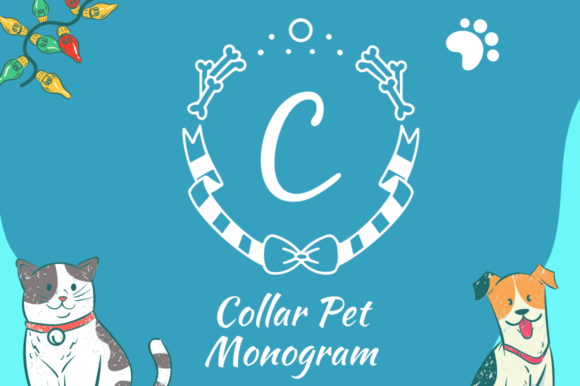
Welcome to the world of Collar Pet Monogram Font, a decorative font collection that will captivate your heart and unleash your creativity. Inspired by the irresistible charm of cats, this font family is a delightful blend of playfulness and sophistication, designed to add a touch of whimsy to your projects.
Imagine transforming your designs with the adorable characters of Collar Pet Monogram. Each letter, meticulously crafted with a hint of feline flair, will bring a smile to your face and leave a lasting impression on your audience. Whether you're crafting personalized gifts, creating eye-catching branding, or simply adding a touch of fun to your everyday documents, this font family is the purr-fect choice.
Let your imagination run wild as you explore the endless possibilities of Collar Pet Monogram. From heartwarming children's books to playful invitations, from stylish logos to personalized home décor, this font will effortlessly elevate your creations. Its versatility knows no bounds, making it a must-have in the toolbox of every creative professional, pet enthusiast, and design aficionado.
Whether you're a seasoned designer or just starting your creative journey, Collar Pet Monogram is the perfect companion to guide you along the way. Its user-friendly nature makes it accessible to all skill levels, ensuring that you can effortlessly bring your ideas to life. Embrace the magic of Collar Pet Monogram and watch as your projects blossom into works of art.
So, dive into the world of Collar Pet Monogram today and let your creativity soar. Add this delightful font family to your collection and embark on a journey of endless possibilities, where every letter tells a story and every design becomes a masterpiece. Unleash the power of Collar Pet Monogram and let your imagination run wild!